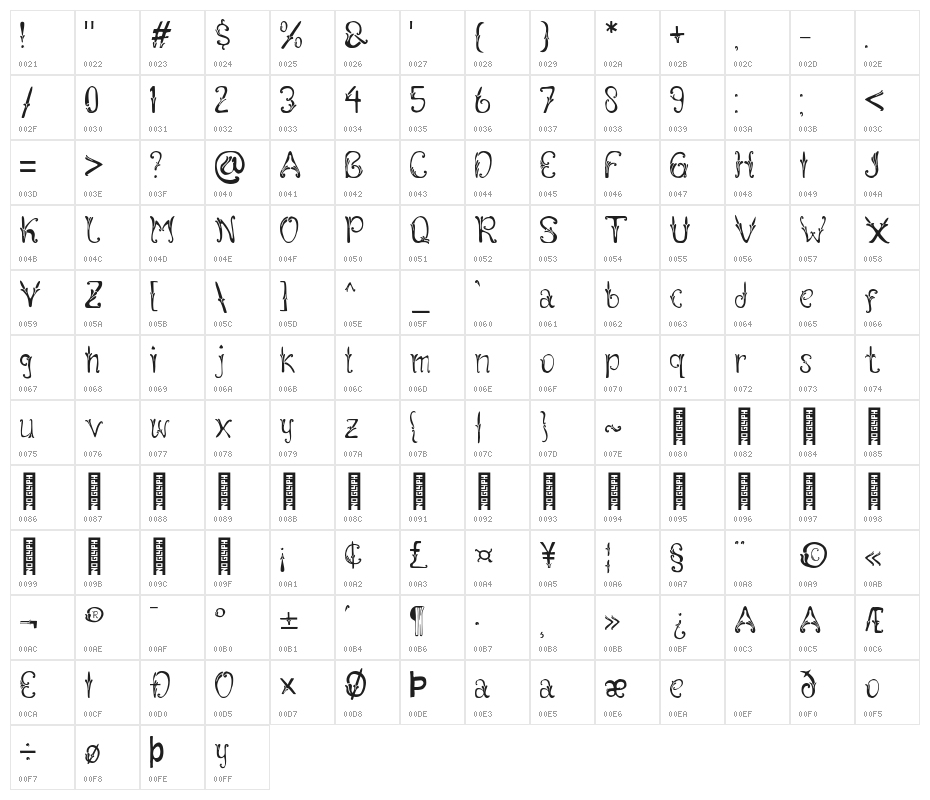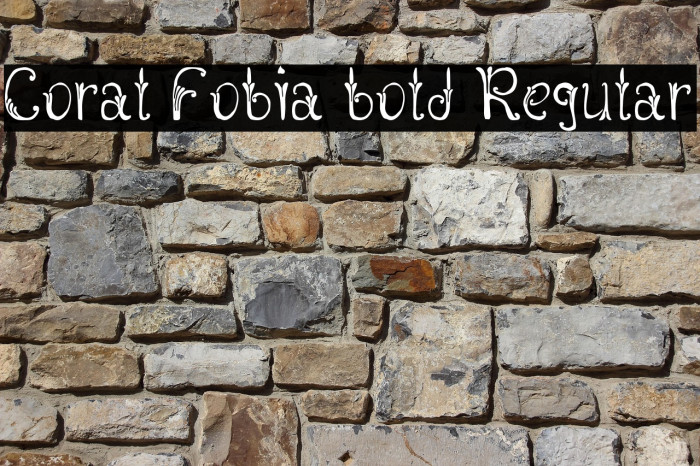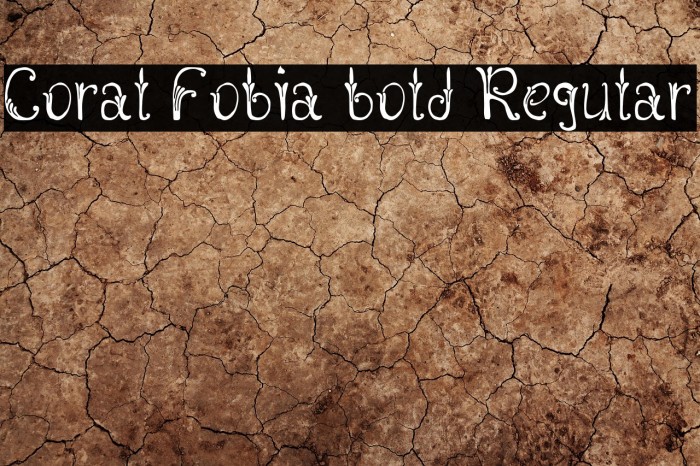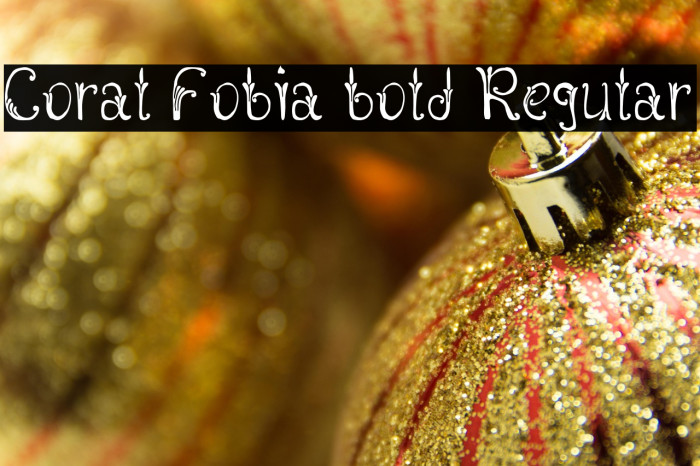
Coral Fobia bold Regular Font
Coral Fobia bold Regular Description
This font features a decorative and whimsical style, characterized by its intricate and playful design elements. Each letter is adorned with unique, swirling embellishments that give it a lively and artistic appearance. The uppercase and lowercase letters maintain a consistent theme, with curves and flourishes that create a sense of movement and creativity. The numbers and special characters follow the same ornate style, making the font suitable for projects that require a touch of elegance and flair. Its bold presence and artistic details make it stand out, perfect for eye-catching designs.
Use CaseHeadlines, Logos, Artistic projects
Proposed ProjectsIdeal for invitations, artistic posters, branding, and creative projects that require a unique and decorative touch.